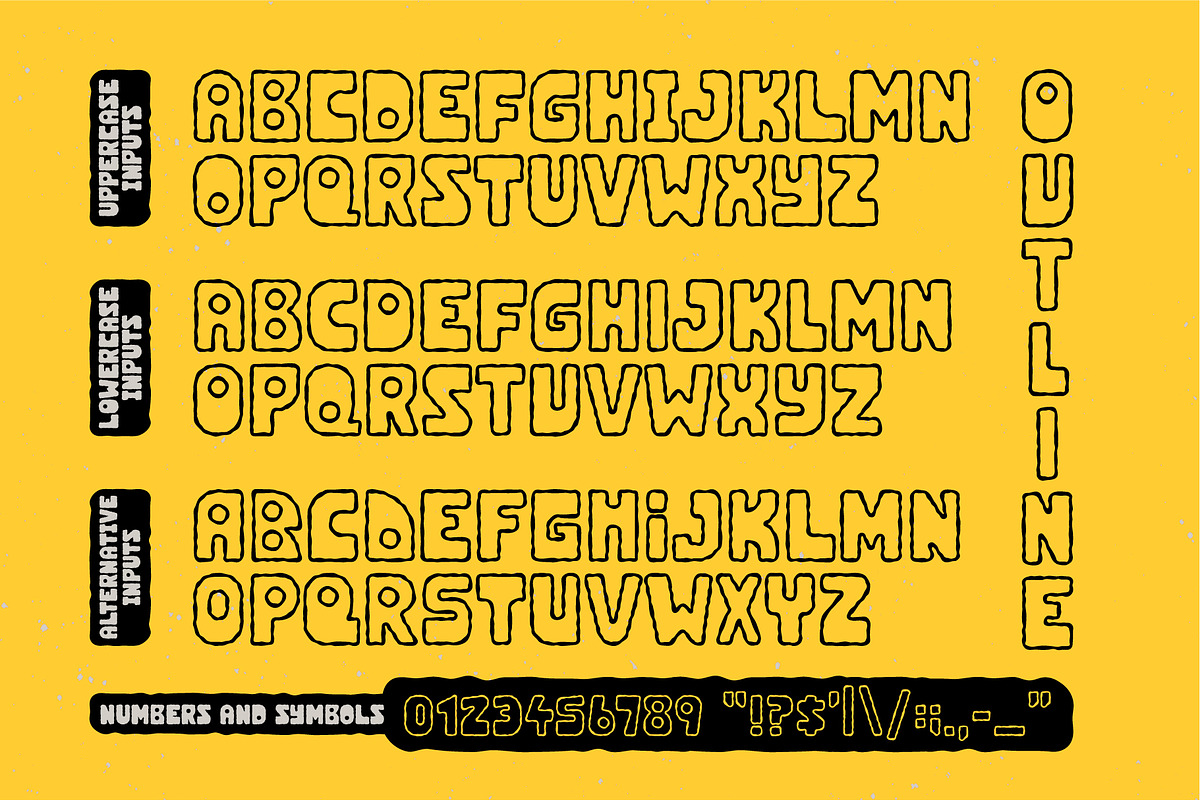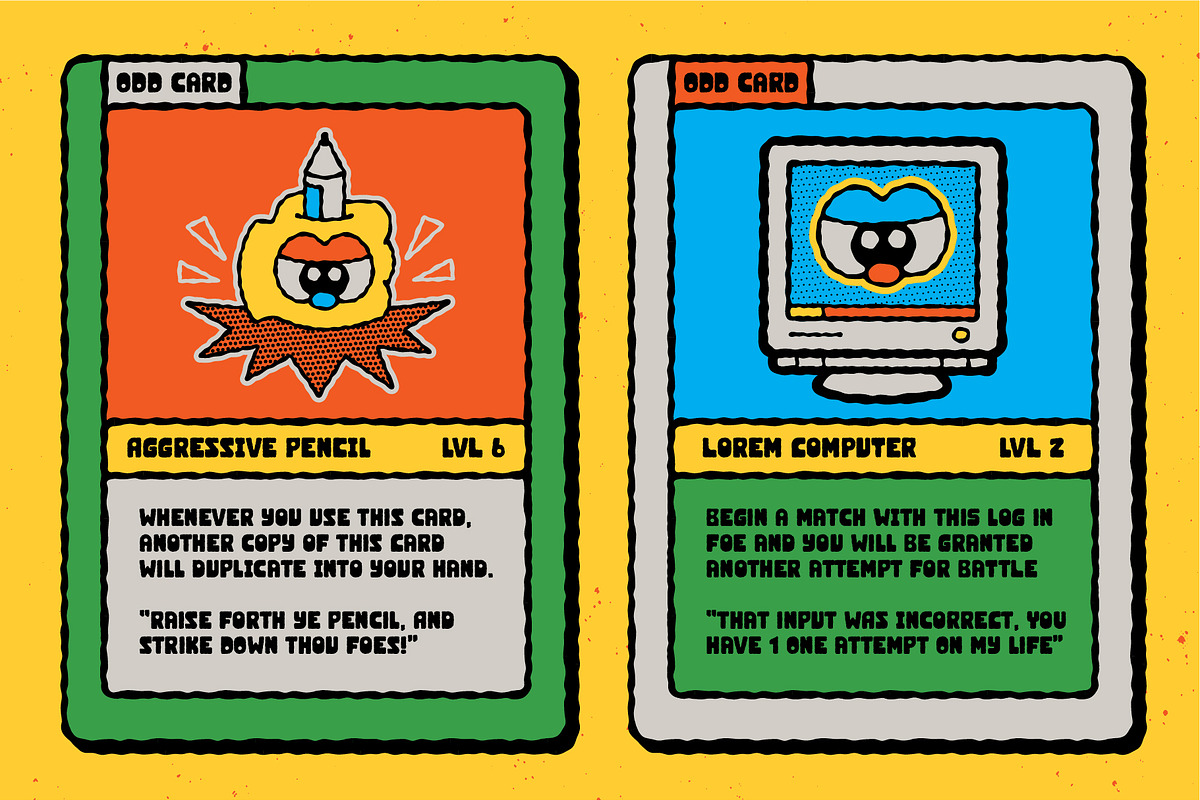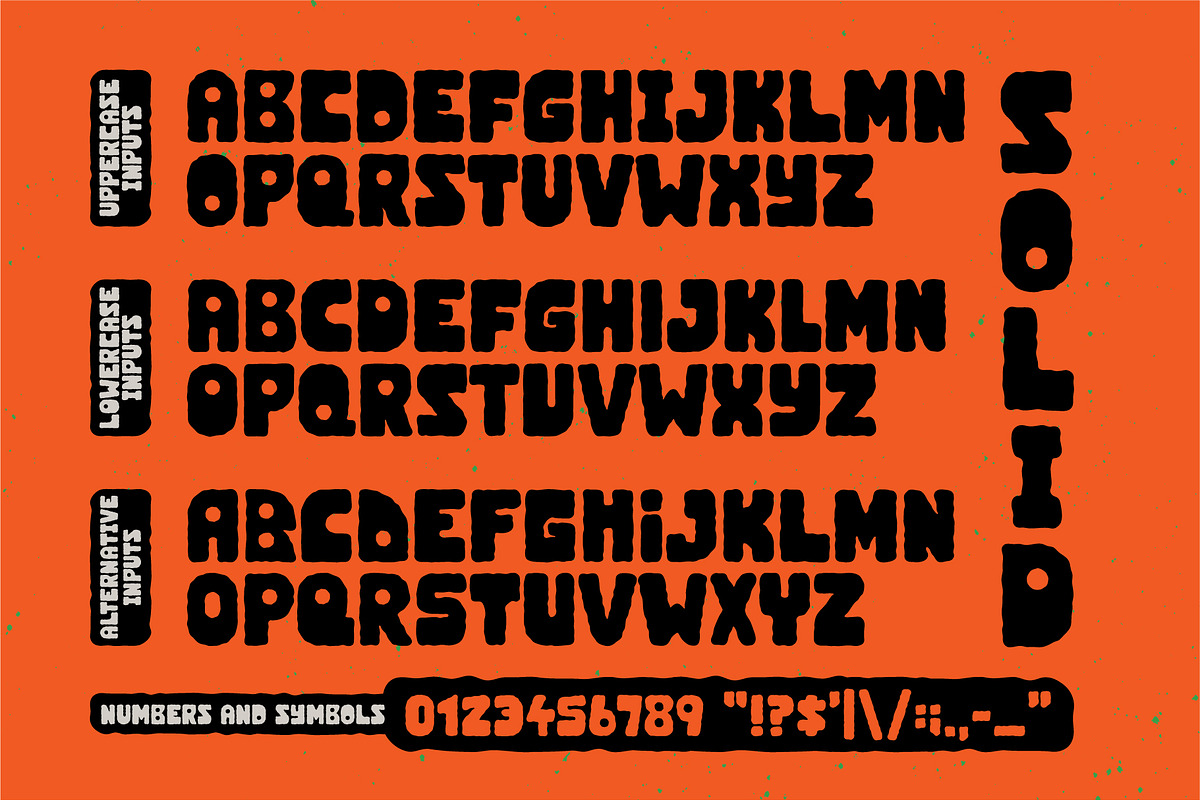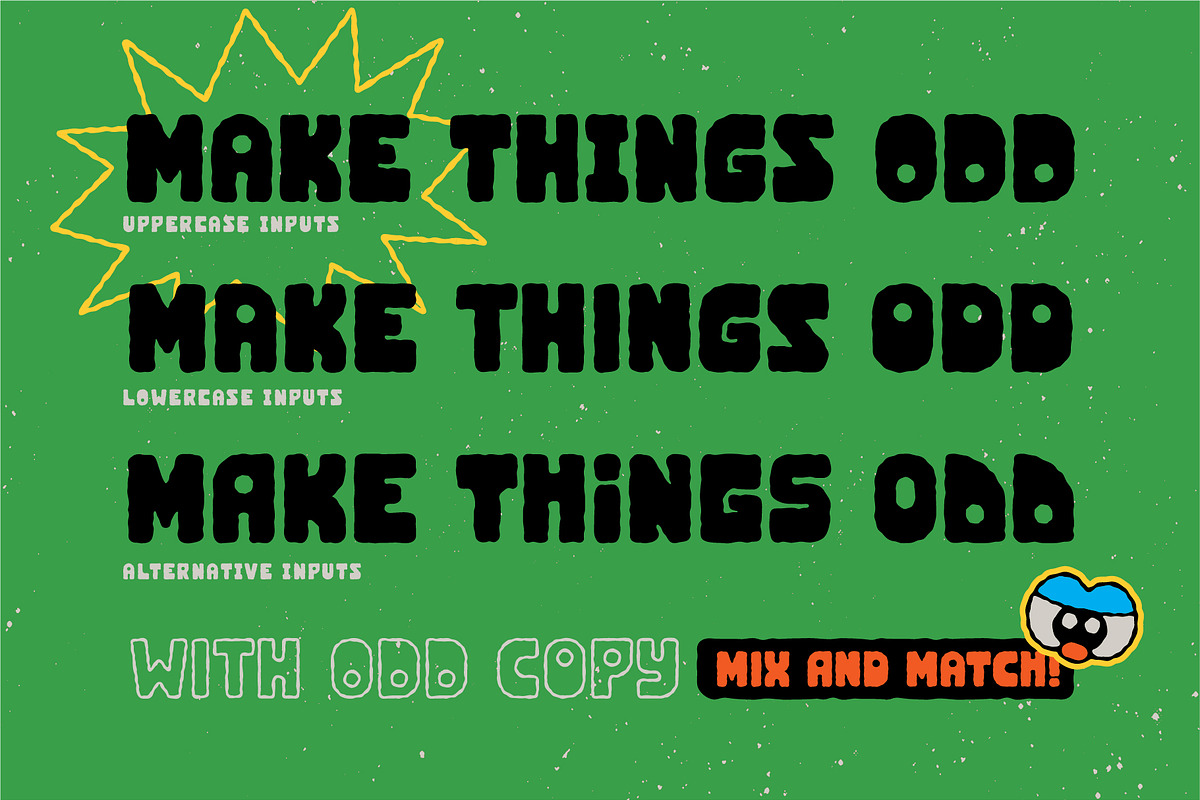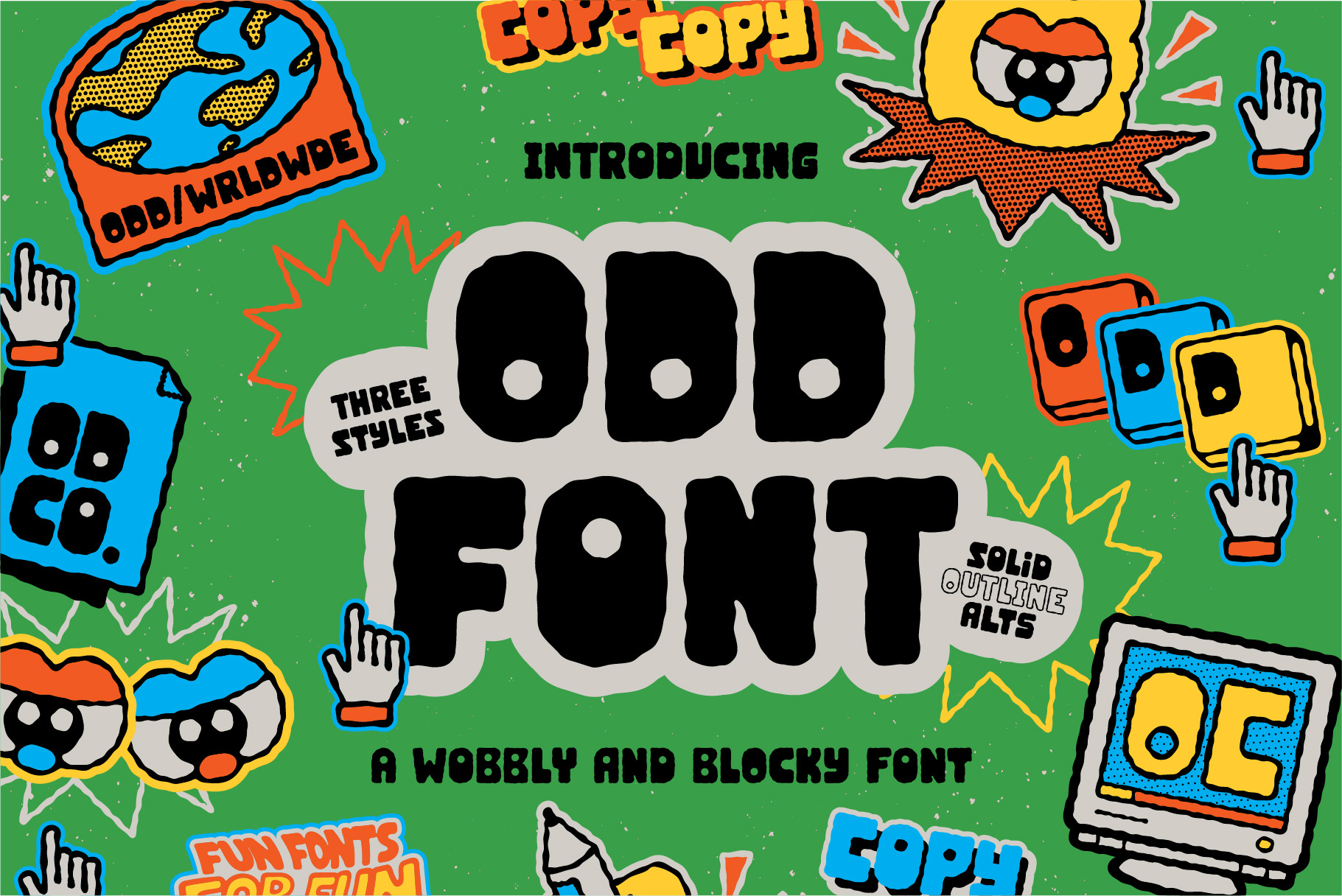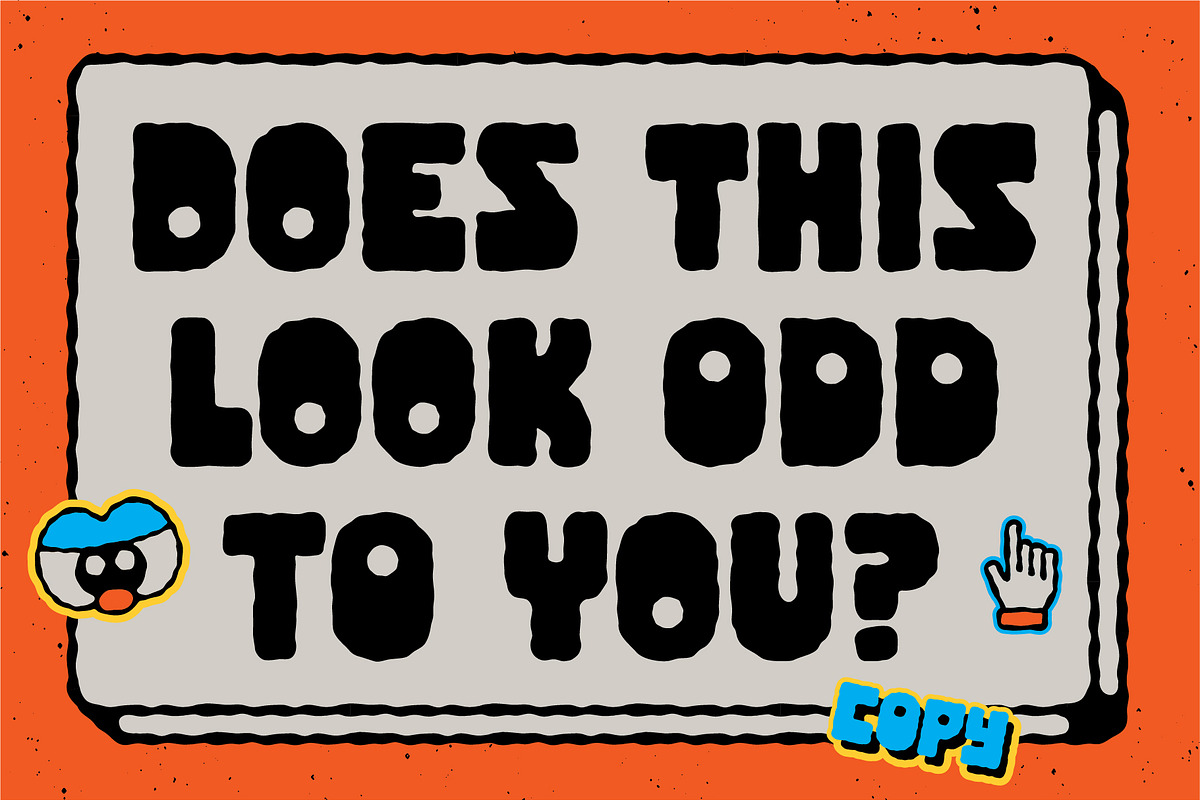
Odd Font | Wobbly Blocky Font
Introducing Odd Font 👀 Check out this strange oddity! OF was built from the ground up and each letter was designed with consideration and wobble.
Want something a little more odd for your design? Say no more as we've got you covered with this textured and wobbly, blocky font. Three styles are available - Solid, Outline and Alternatives. Had a bunch of fun creating this one and it's even more fun to use. Enjoy!
Odd Font is an All Caps display font that is blocky, textured and has a bunch of mixed letter forms for creative control on how your words look. Make your designs look that little bit more odd with Odd Font!
- Letters in all caps
- Definitely a bit of an odd one!